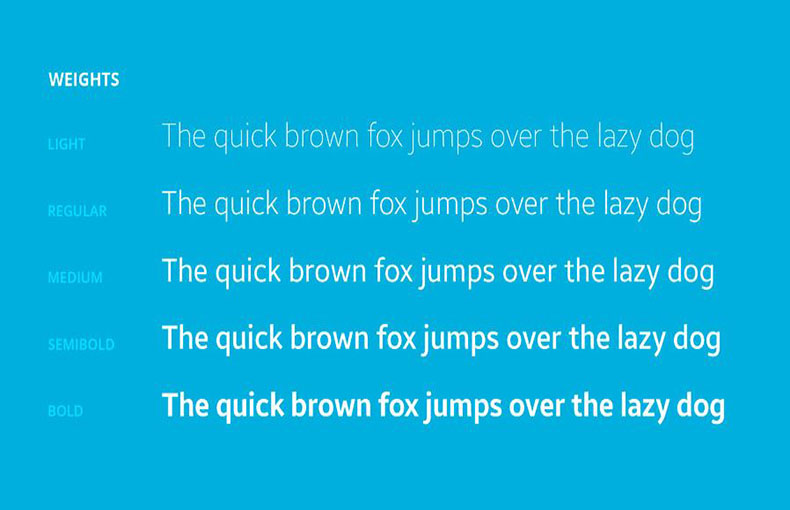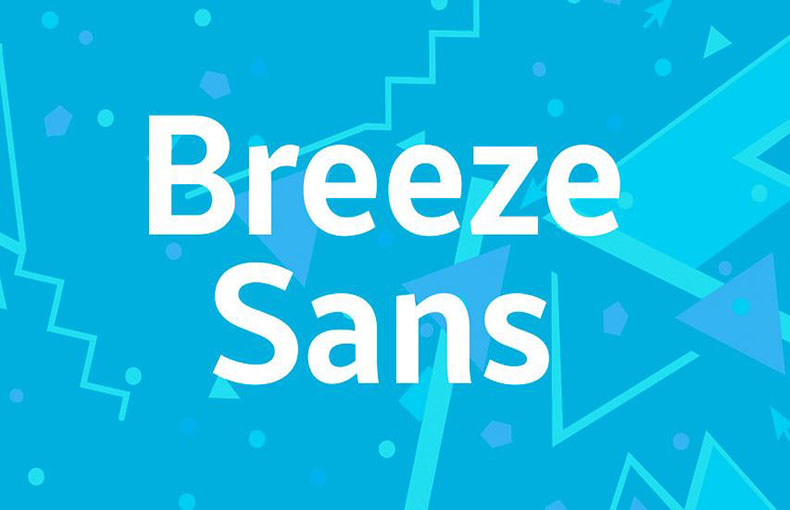
Breeze Sans Font is a humanist sans-serif typeface for the Latin, Greek, and Cyrillic writing systems designed by Dalton Maag for Samsung.
It was specifically designed for Tizen UI since Tizen SDK 2.4. It provides excellent readability on all screen sizes including WVGA and HD resolutions.
Breeze Sans typeface is available in regular and condensed styles and each variant has thin, light, regular, medium, and bold weights.
Therefore, we can say that it is a versatile font specially designed to be used in display works. The best part is that all the letters look clean and clear, without any mistakes.
This font is great for creating amazing text designs. This is especially useful for designers in the design industry. With various features, it can be used for various book cover designs, brochure layouts, home decorations, and social page designs.